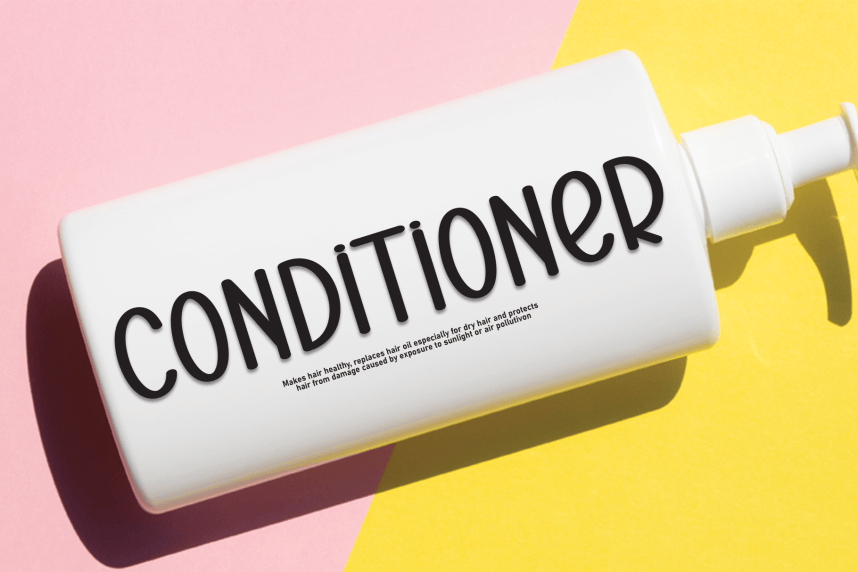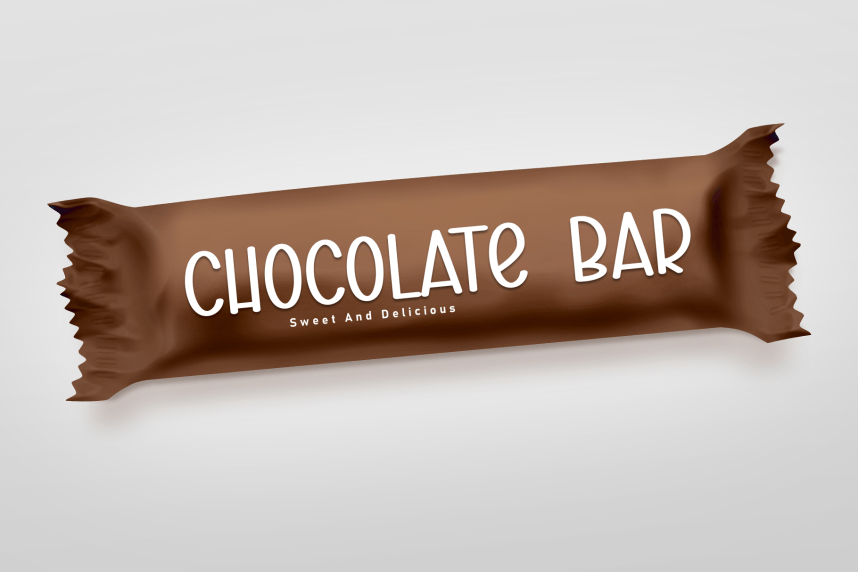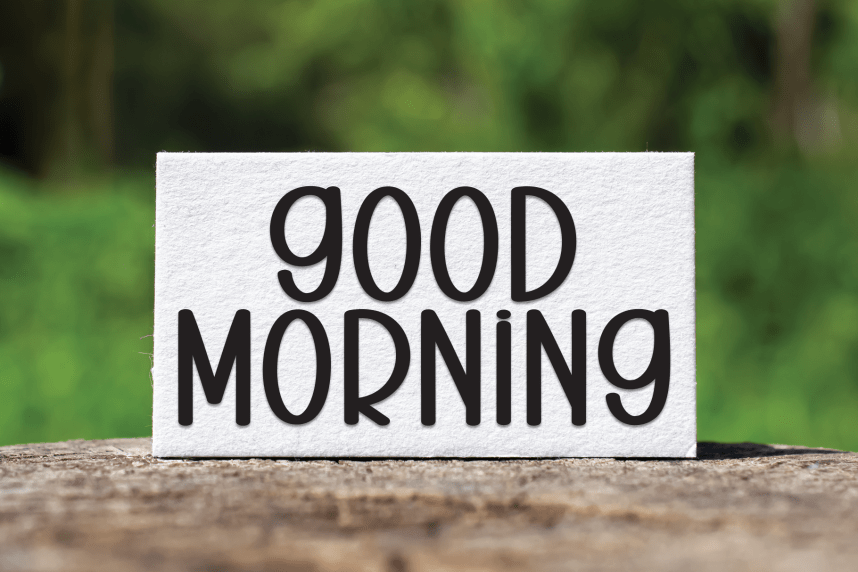
Minimalist Winterday – Playful Style Font
Minimalist Winterday – Playful Style Font, special creative products for you, our products will give you an extraordinary experience. the latest style letters are perfect for wall displays, wedding invitations, social media post logos, advertisements, product packaging, product designs, labels, photography, watermarks, invitations, stationery, and any project that requires taste handwriting.